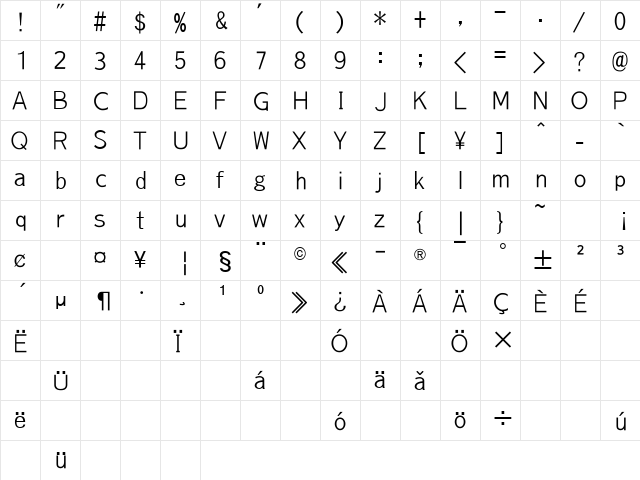
Togoshi Mona Gothic Regular
Design Context for Togoshi Mona Gothic Typeface
Togoshi Mona Gothic takes a clean, functional approach — its unadorned letterforms prioritise legibility and work reliably across screen and print environments.
Font Pairing: Works well alongside a characterful serif or display font that can carry the expressive load while Togoshi Mona Gothic handles the functional copy.
Pro Tip: Use Togoshi Mona Gothic for UI labels, navigation, and short-form body copy where clean legibility is the priority.